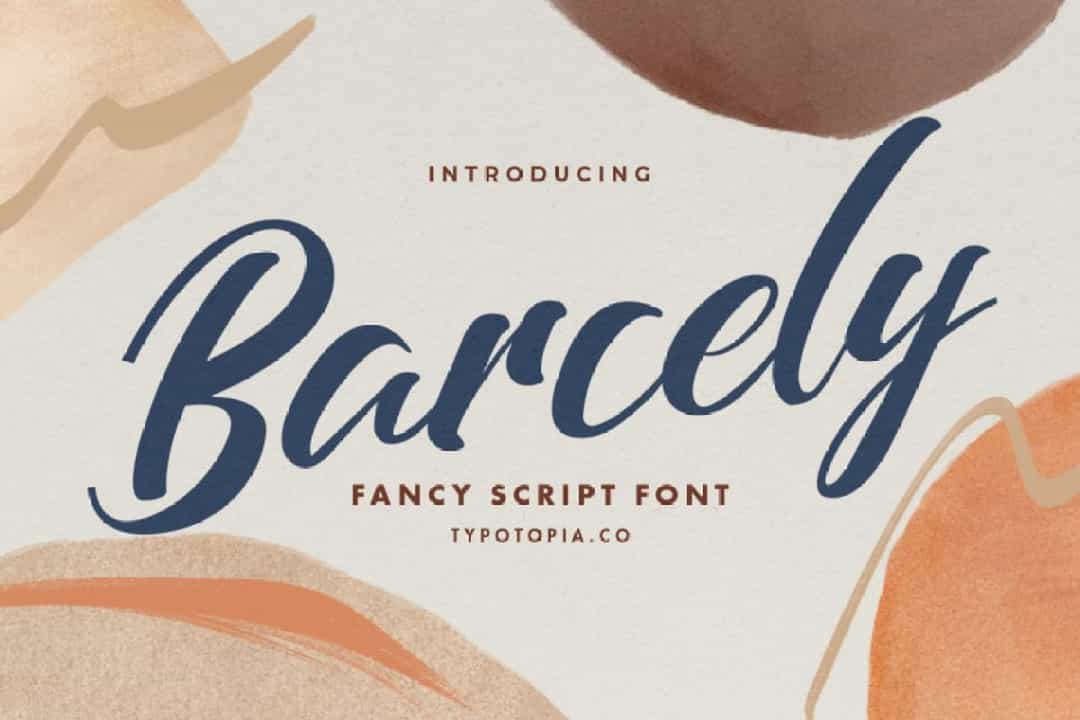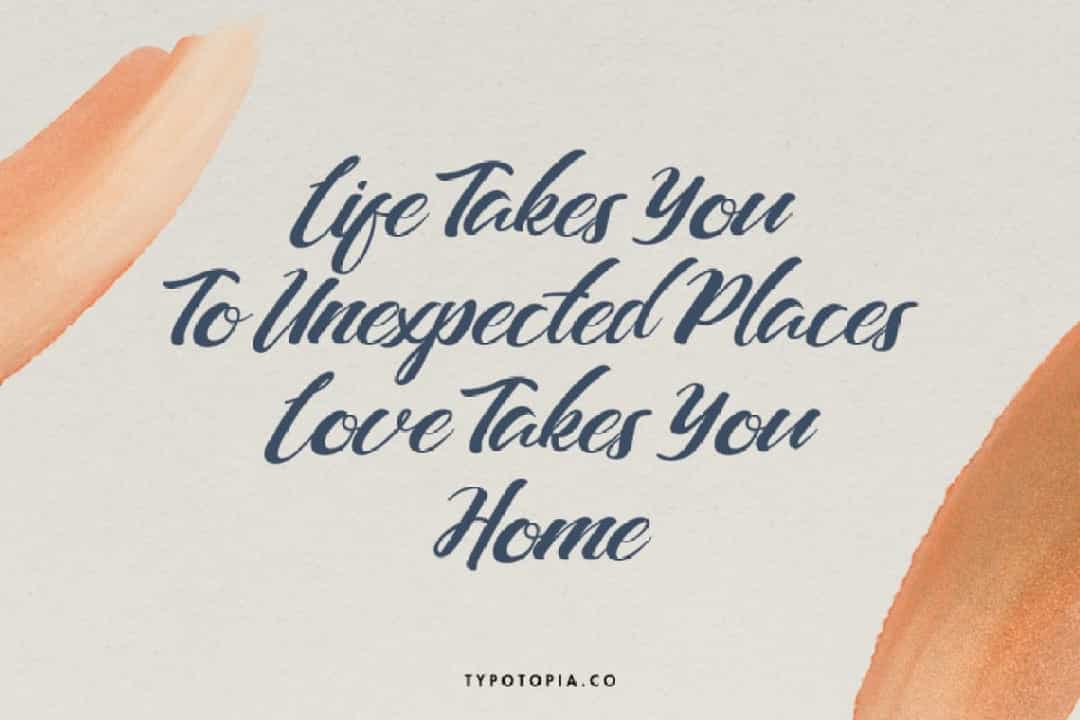
Barcely Fancy Script is a modern calligraphy font that has rather casual style to it. It is often used in logos and printed quotes, invitations packaging for products cards headers logotypes letterhead Apparel Design Poster Label designs etc, so Barcely Fancy is the perfect base font.